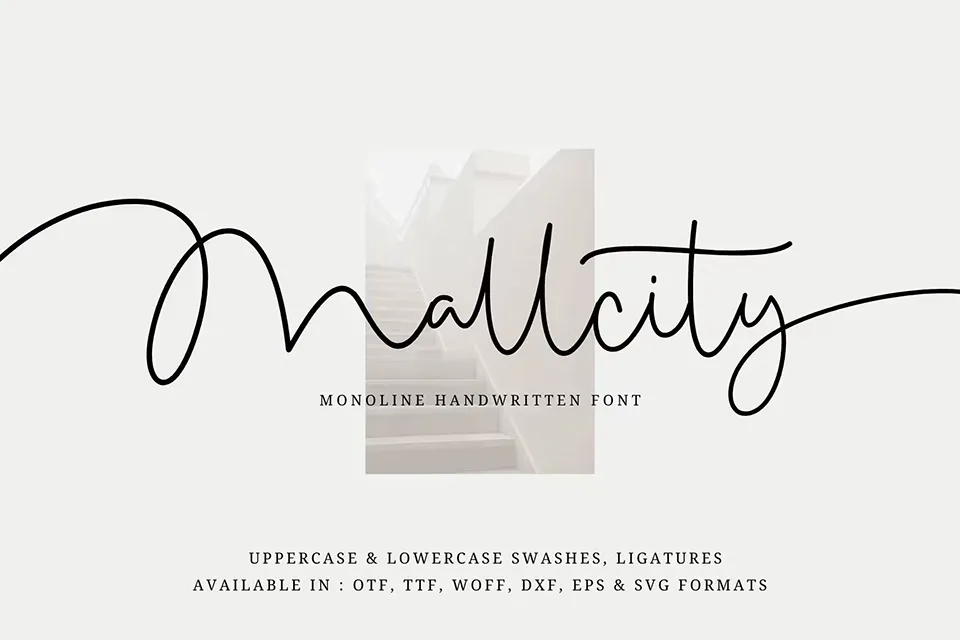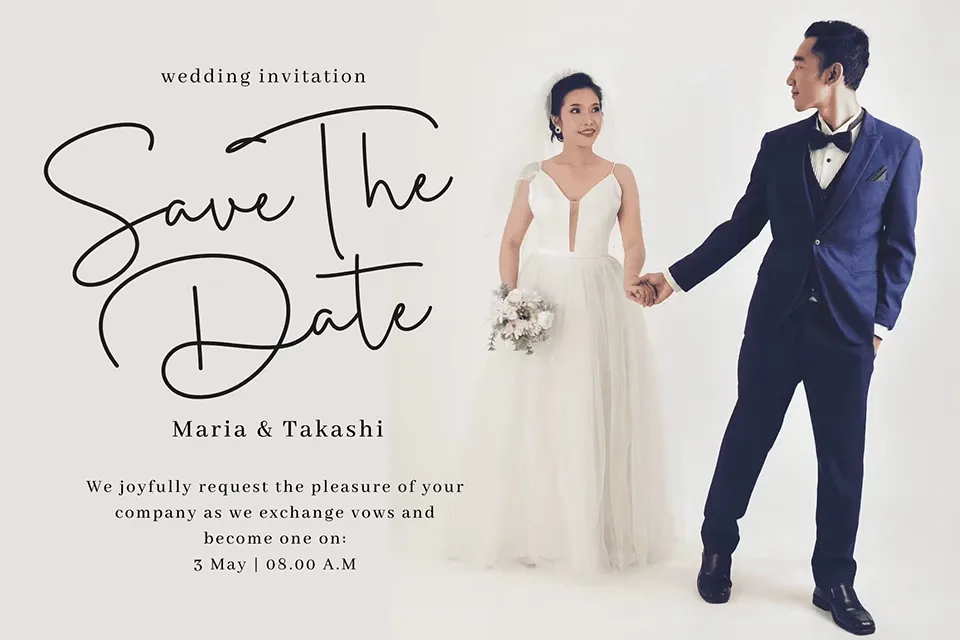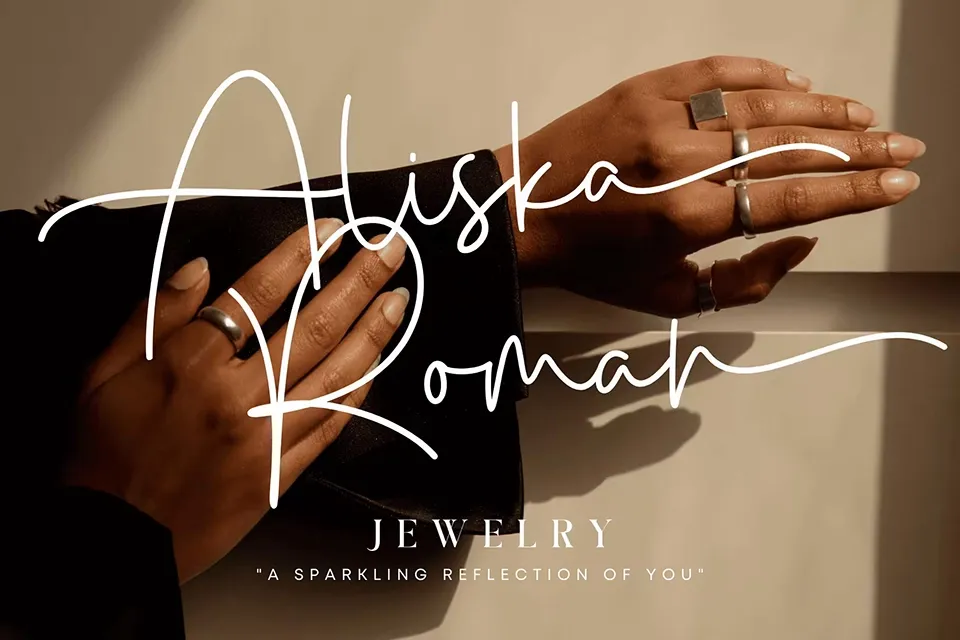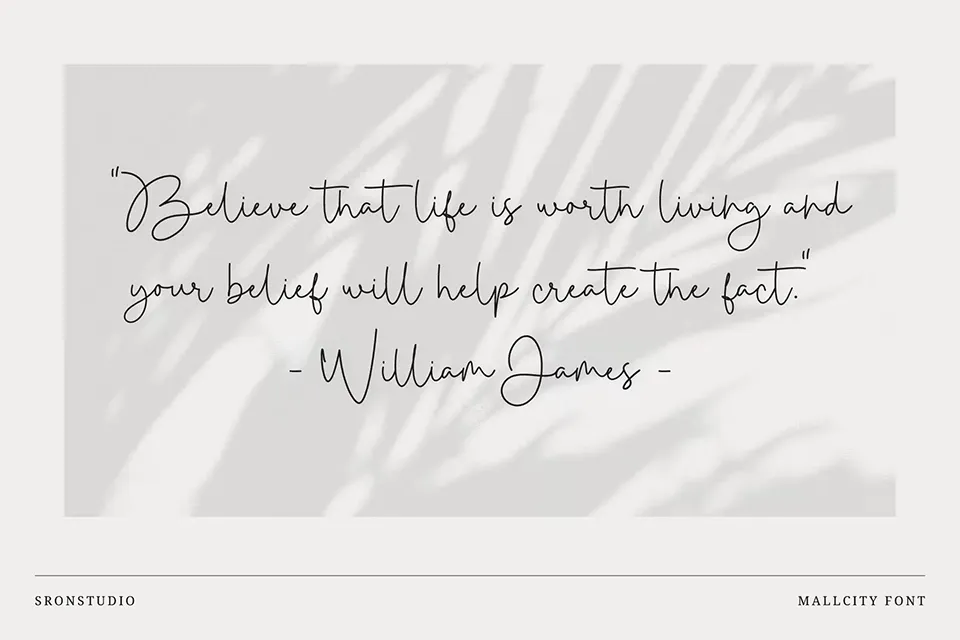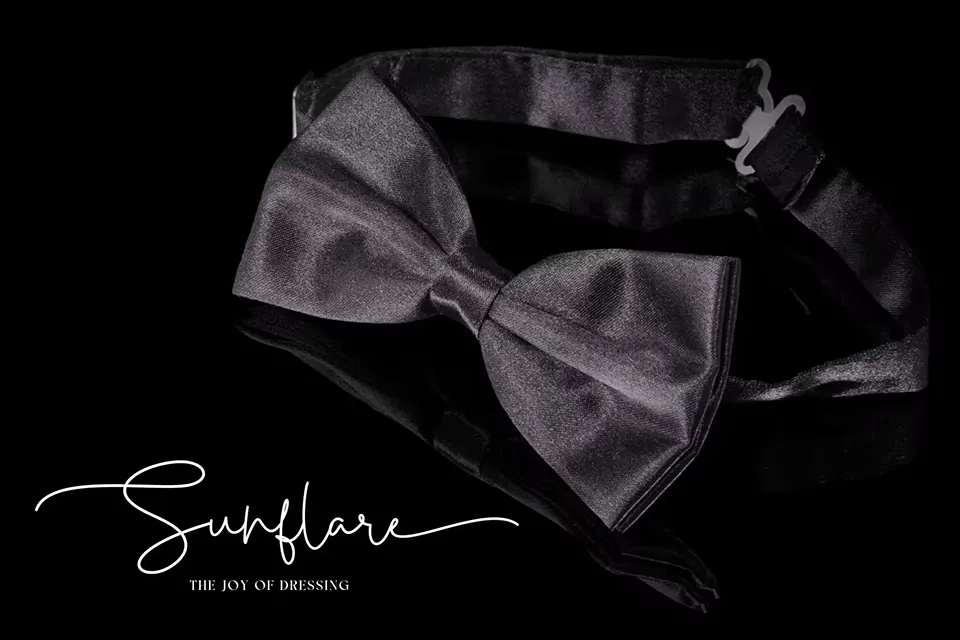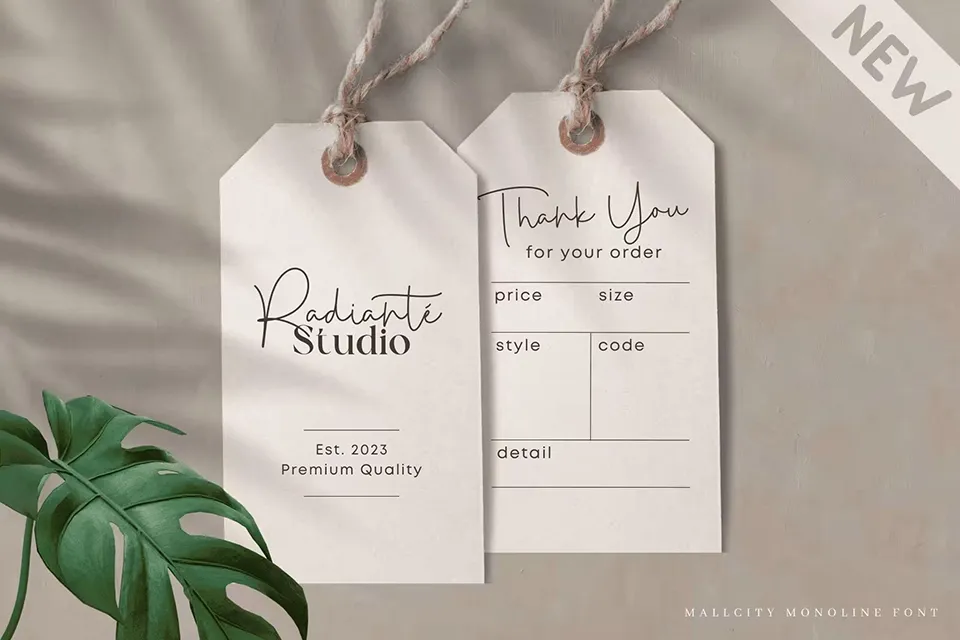
Mallcity Font
The Mallcity Font font is a sophisticated monoline handwritten script featuring elegant swashes, intricate alternates, and ligatures. Its flowing, curved lines make it ideal for high-end design projects, such as branding, invitations, and editorial layouts. With both uppercase and lowercase options, Mallcity brings a modern yet personal touch to any creative work.